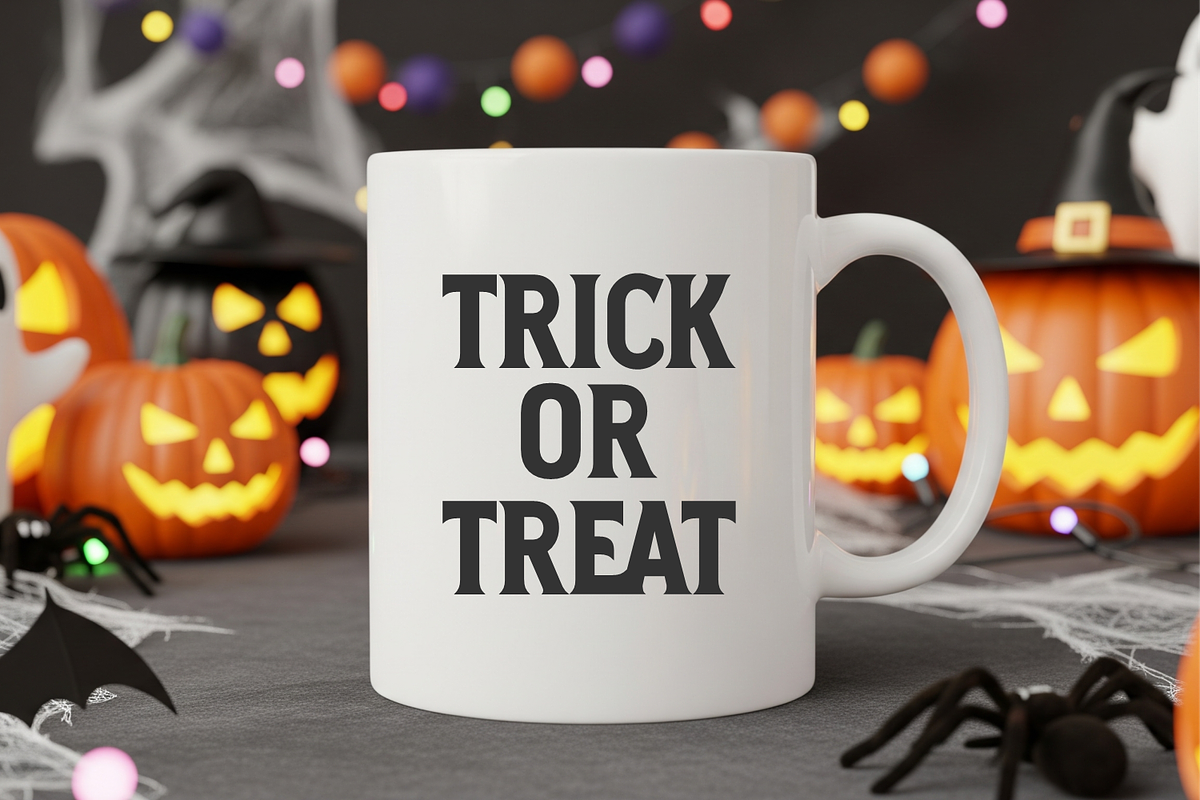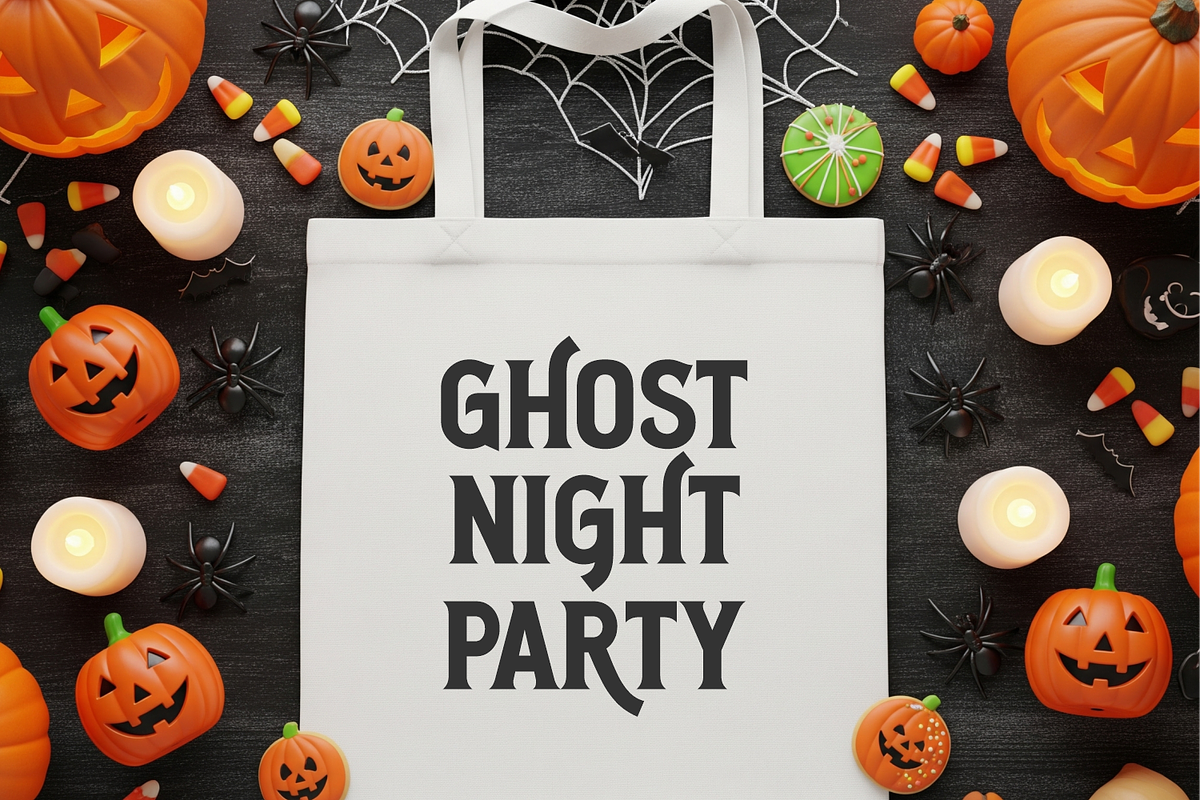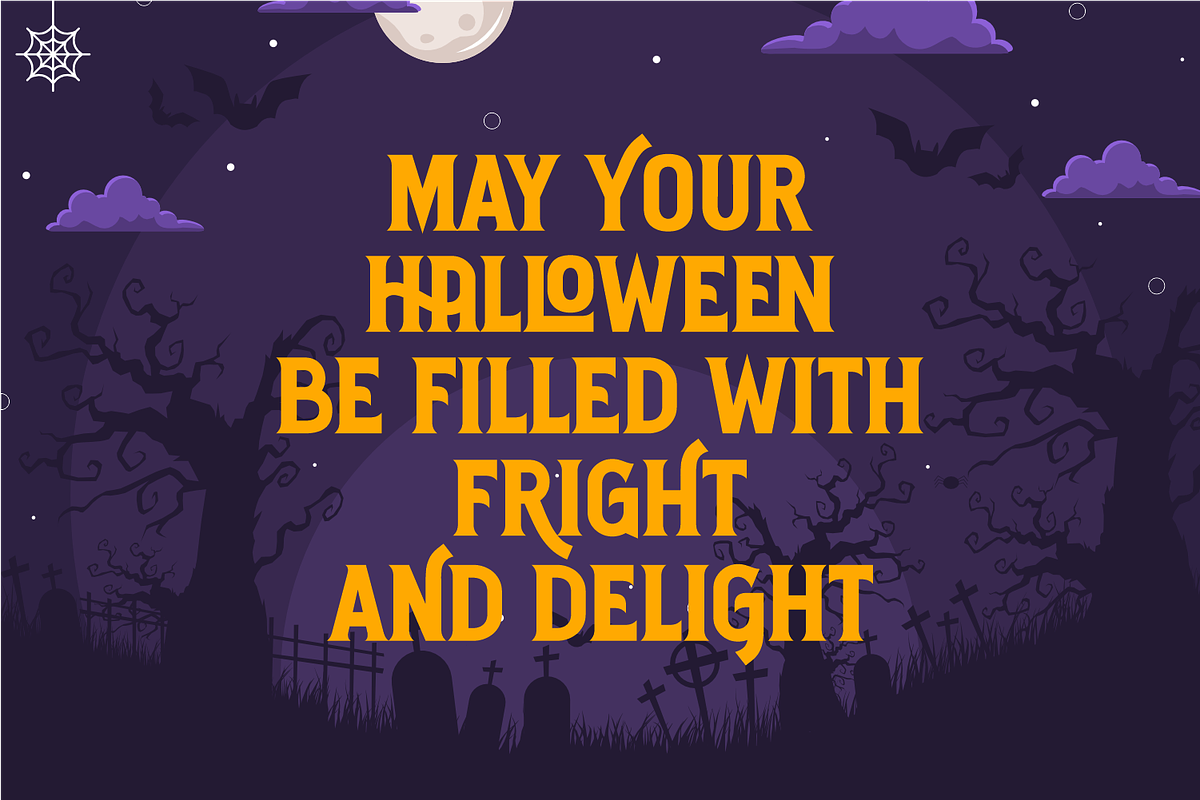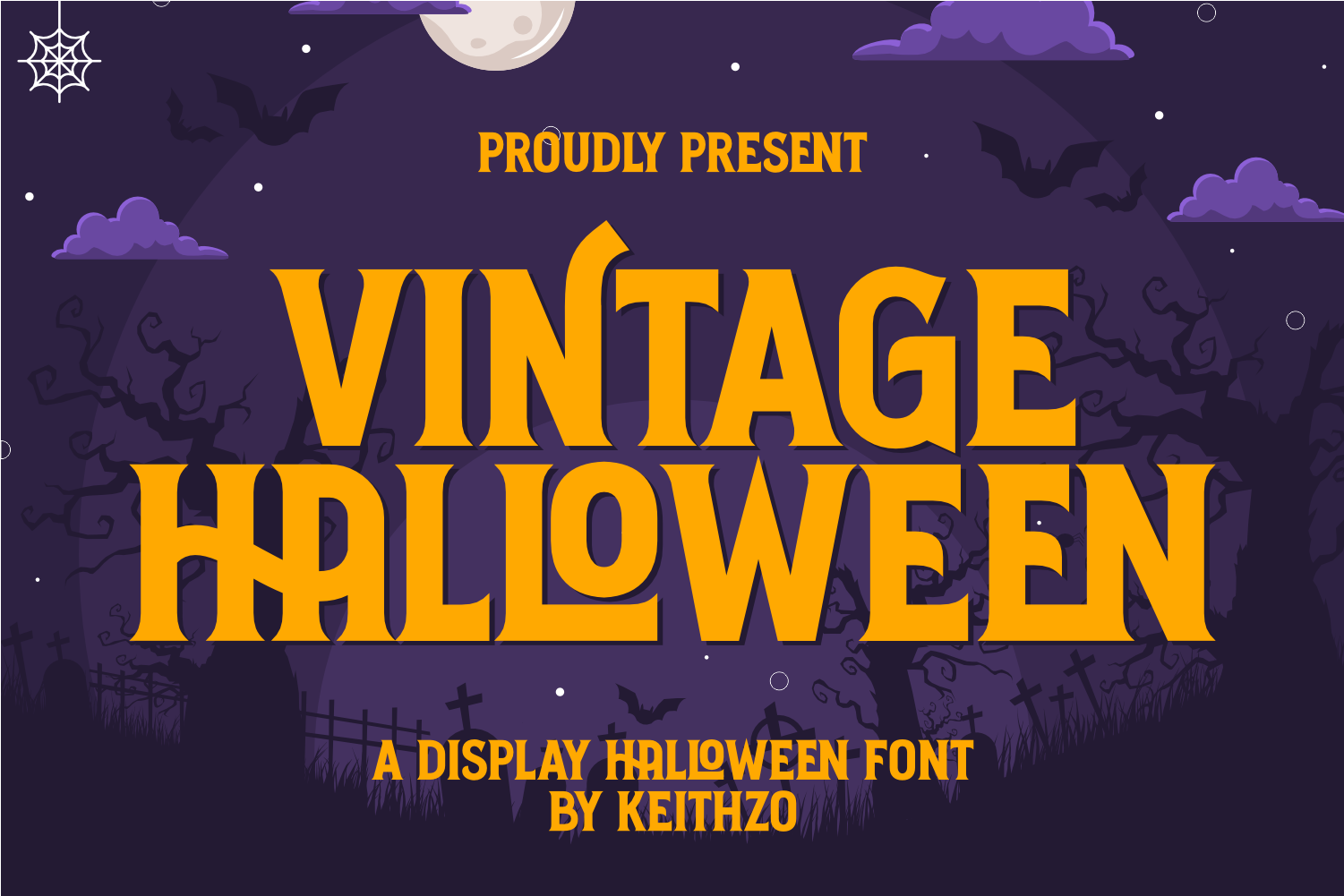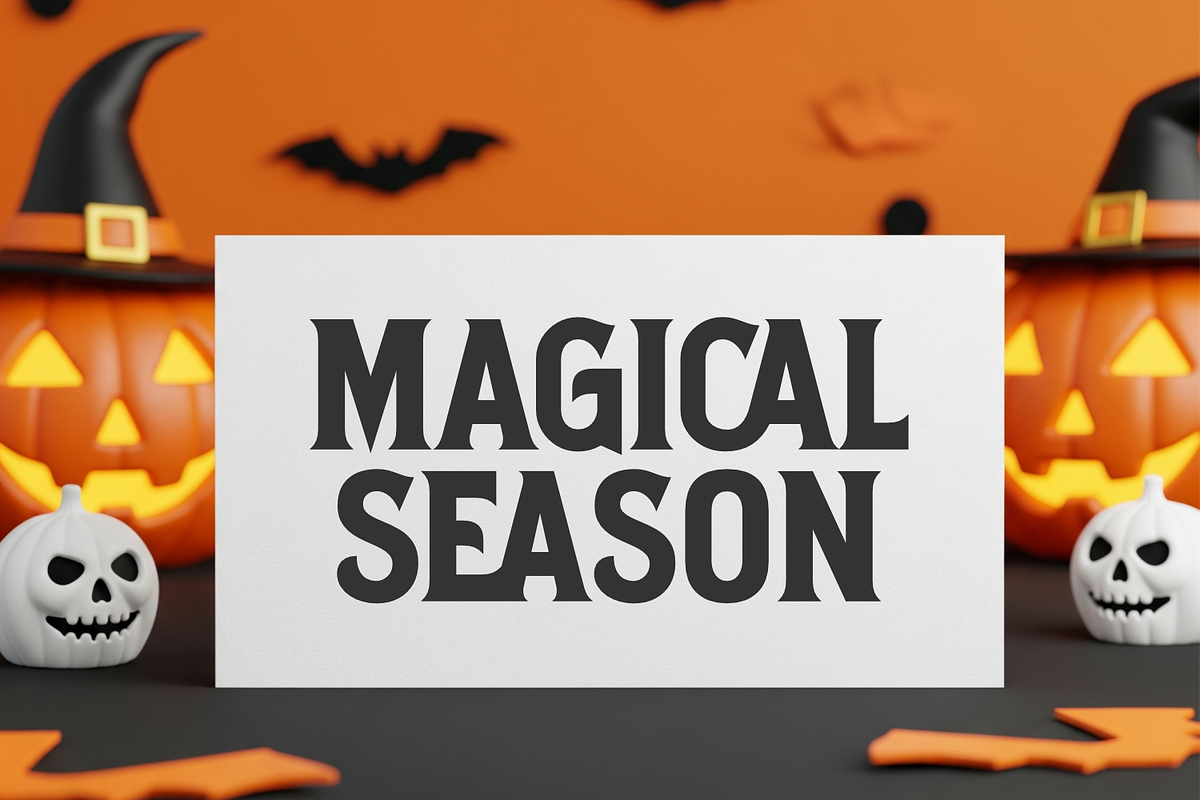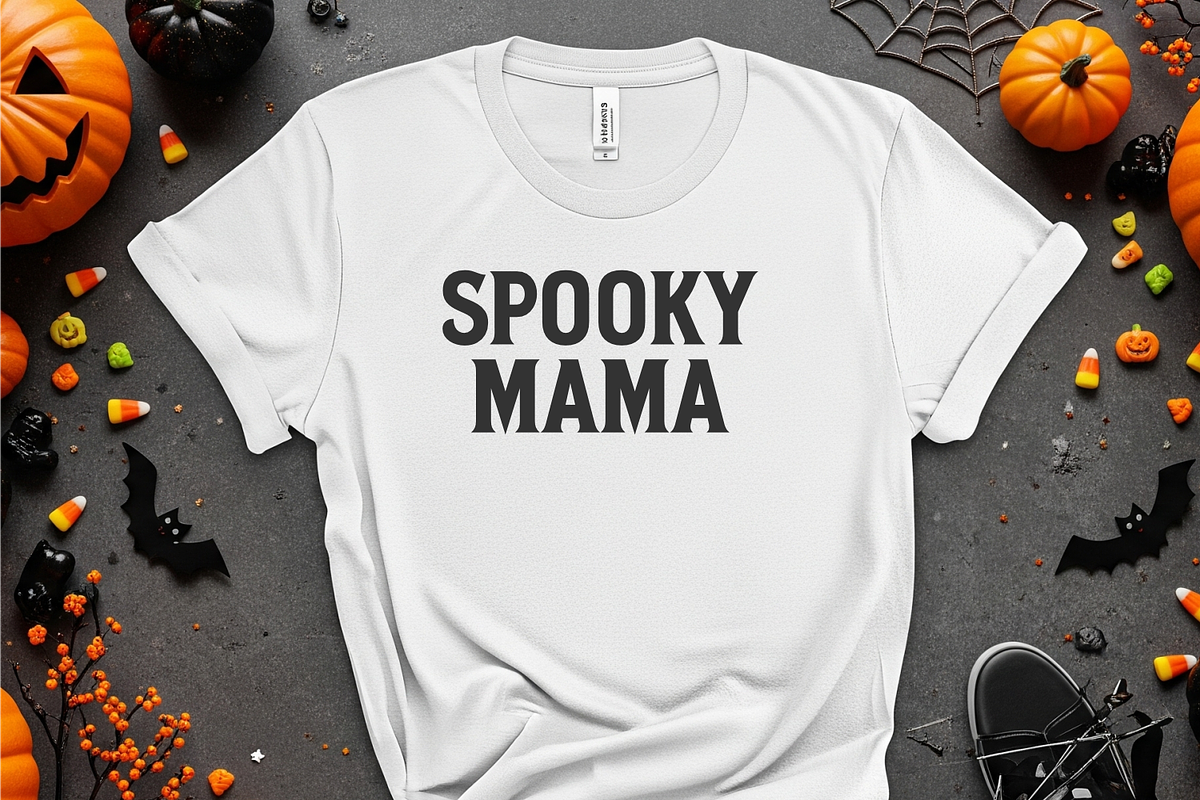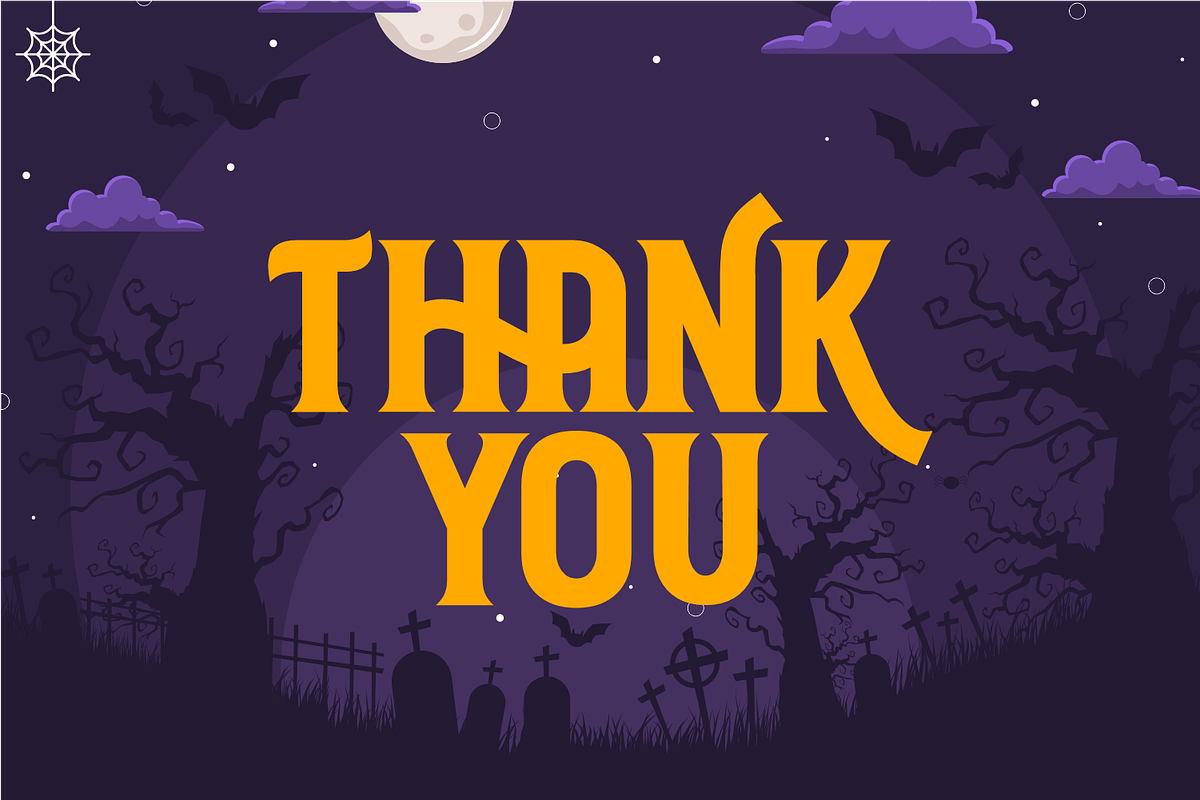
Vintage Halloween - Display Font
Immerse yourself in the eerie ambiance of autumn with Vintage Halloween—a whimsically creepy font designed to bring out the spirit of the season. This font wonderfully embellishes your Halloween projects, whether it’s on a uniquely spooky t-shirt, a ghoulish greeting card, or a hauntingly festive tote bag. You can also enliven your social media presence, create captivating banners, and intriguing advertising materials. With Vintage Halloween, let the charm and thrill of this hauntingly fun typeface elevate your design to bewitching levels.